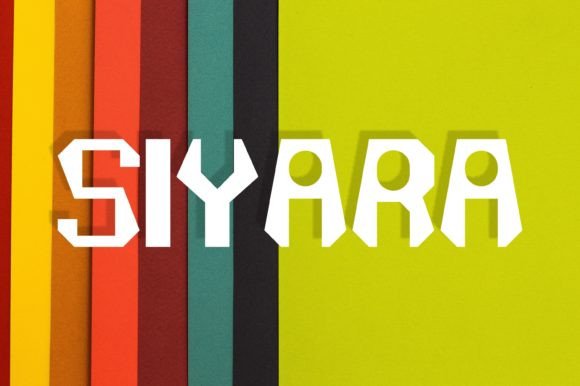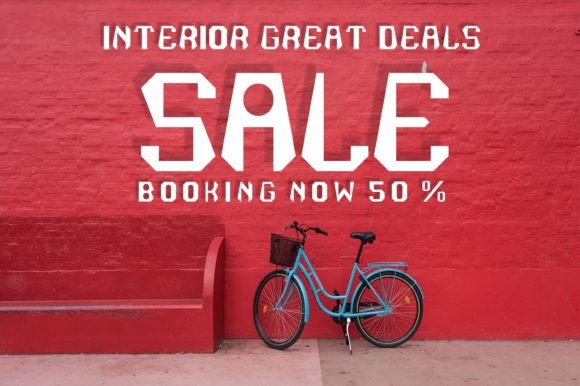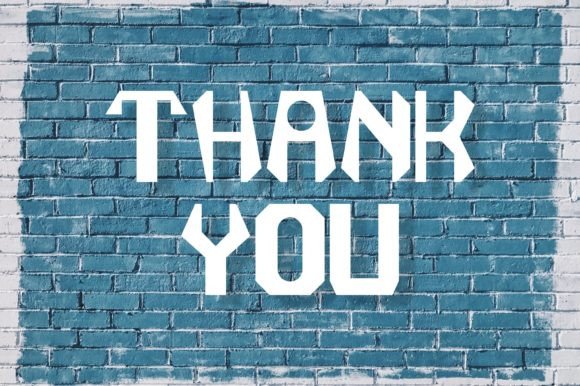
Introduction to Siyara Font
Remember the thrill of discovering that perfect font that elevates your design from good to great? For designers, this moment is like stumbling upon a hidden treasure that makes all the difference in a creative project. And if you’re anything like us, you’re always on the lookout for that special something that sets your work apart.
Enter the enchanting Siyara Font, a stunning display font that’s tailor-made for magazines, crafts, and any other design endeavor where a touch of elegance is needed. With its beautiful, high-quality design, this font is an absolute gem for designers seeking a reliable design resource. Whether you’re working on a project that requires a transparent background or a bold statement, Siyara Font is sure to deliver.
Key Features of Siyara Font
- Transparent background, allowing for seamless integration with any design
- Unique, elegant design making it perfect for a variety of creative projects, from branding to publishing
Honest Review: Siyara Font
I recently stumbled upon the Siyara Font and I must say it’s been a game-changer for my creative projects. This design resource has truly elevated my work, and I’m excited to share my honest review with you.
- High-quality design: The Siyara Font boasts a stunning aesthetic that’s perfect for a wide range of creative projects.
- Transparent background: The transparent background option allows for seamless integration with other design elements.
- Limited customization options: While the font itself is stunning, I wish there were more customization options available to tailor it to specific design needs.
- No bold or italic styles: I found myself needing to use other fonts to add emphasis or create italics, which was a bit of a hassle.
Overall, I’m impressed with the Siyara Font and would definitely recommend it to fellow designers. While it may have some limitations, its high-quality design and free download make it a valuable addition to any design resource library.
For optimal results, use the Siyara Font on a transparent background to create a seamless design. This font is ideal for creative projects, such as logo designs, brochures, and social media graphics. You can also use it for presentations, documents, and websites.